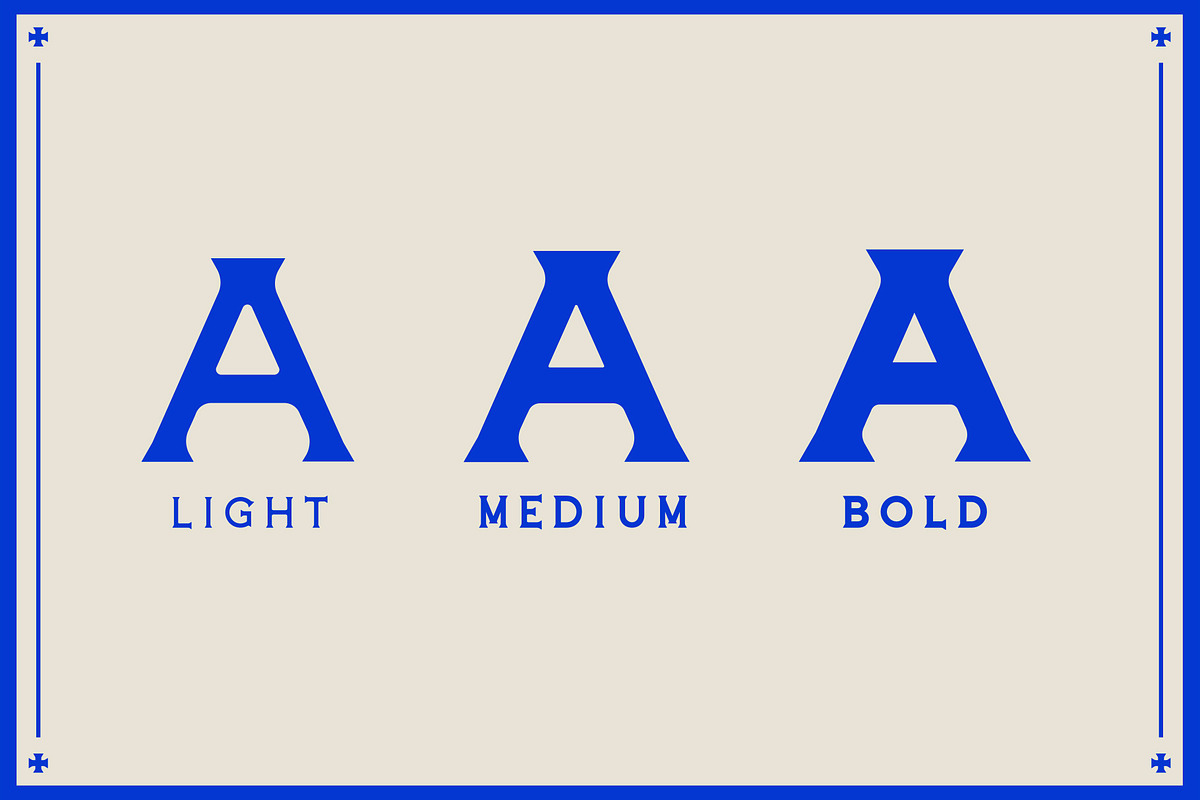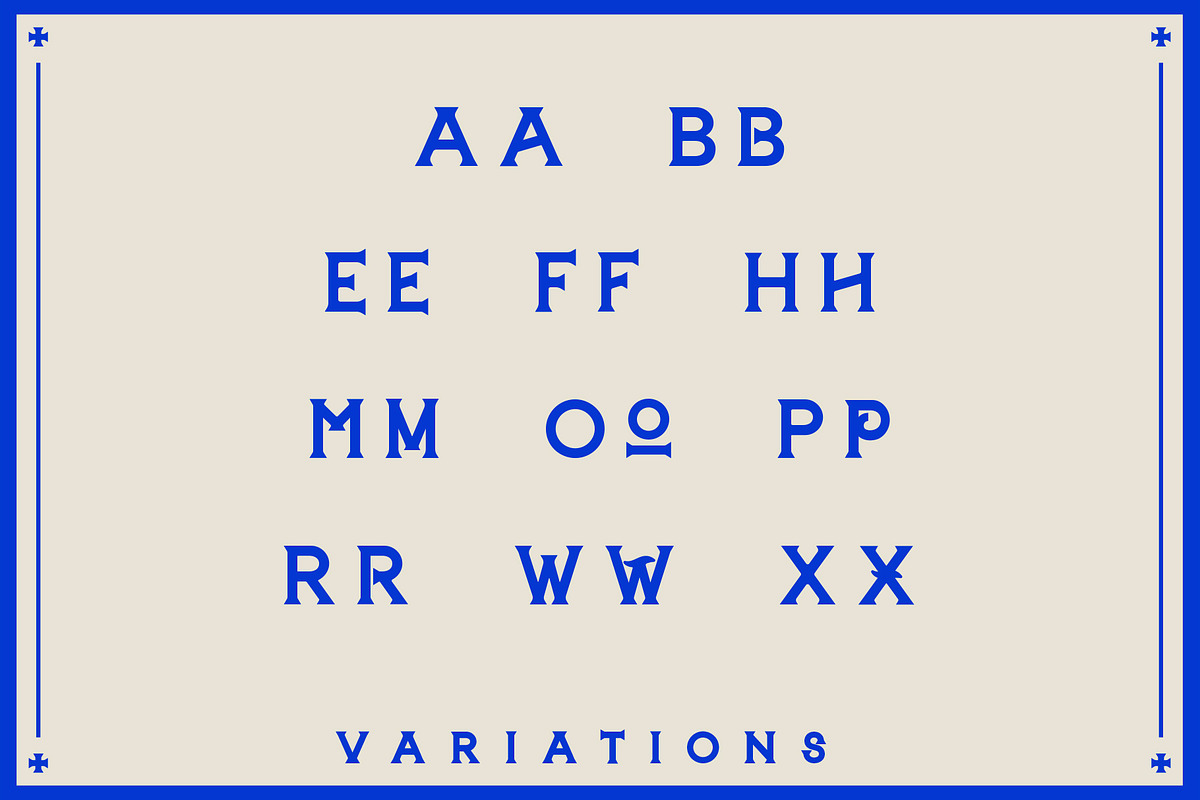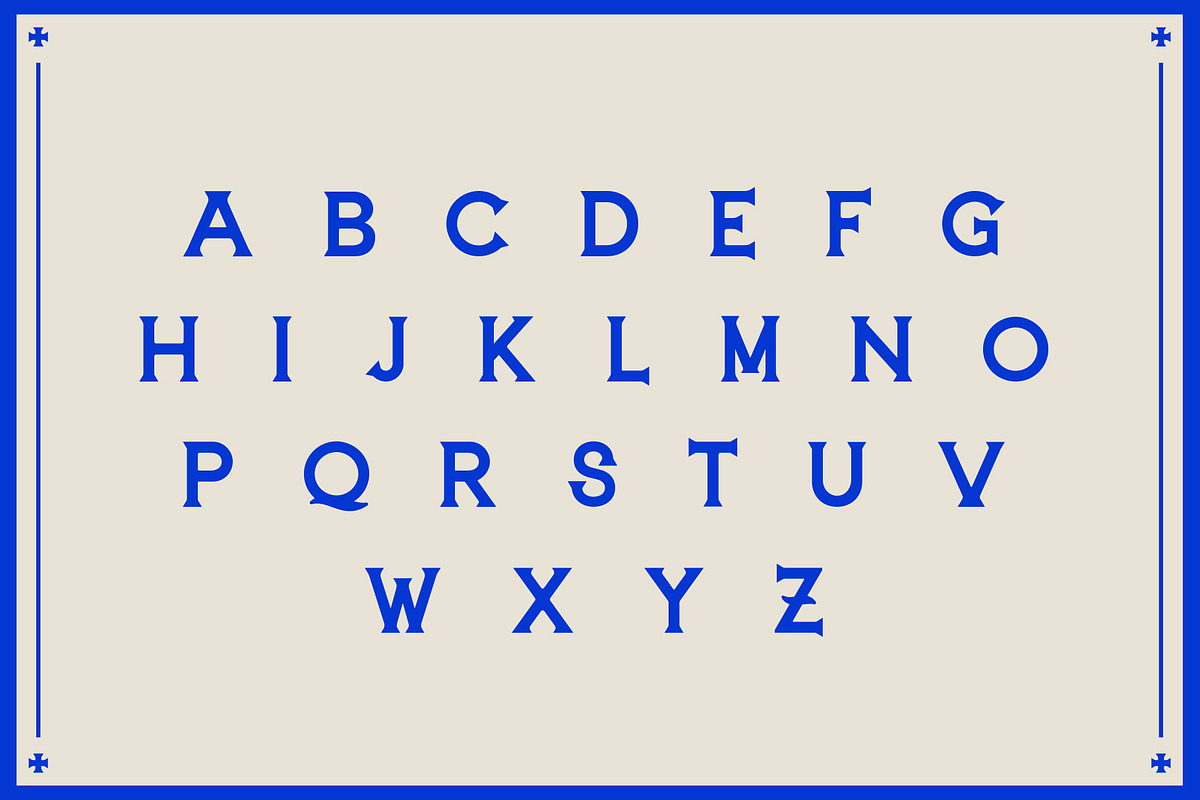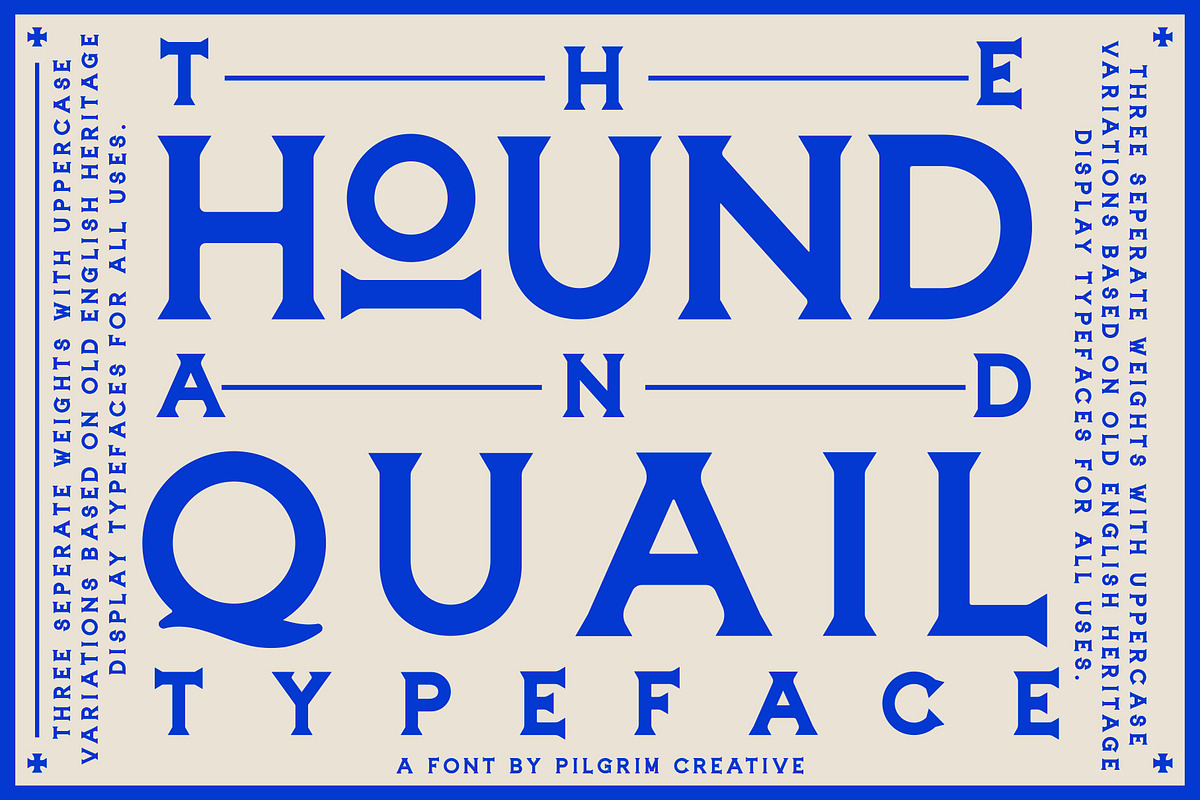
The Hound & Quail
The Hound & Quail is the outcome of reminiscing on old western styles with a modern take.
- All Uppercase Font
- Capital Letter Variations
- Three Different Weights (Light, Medium, Bold)
- Numbers and Special Characters